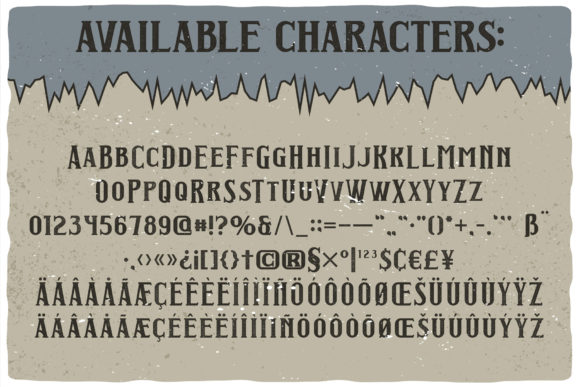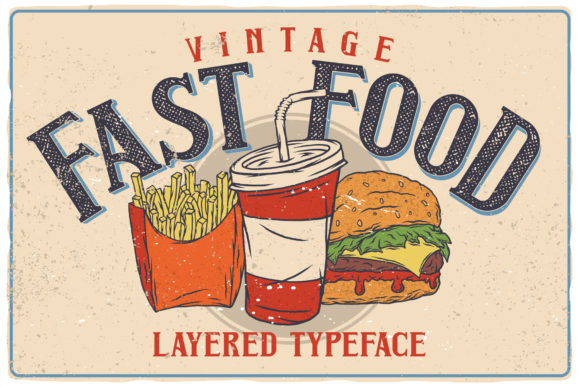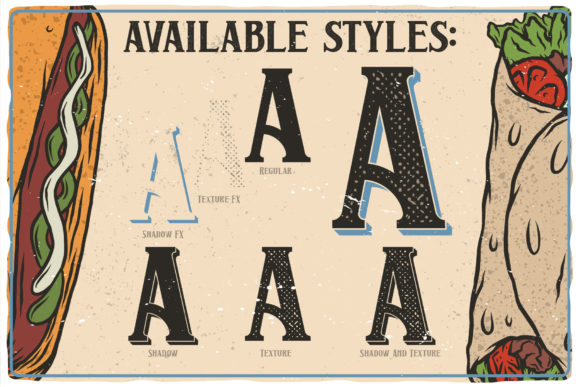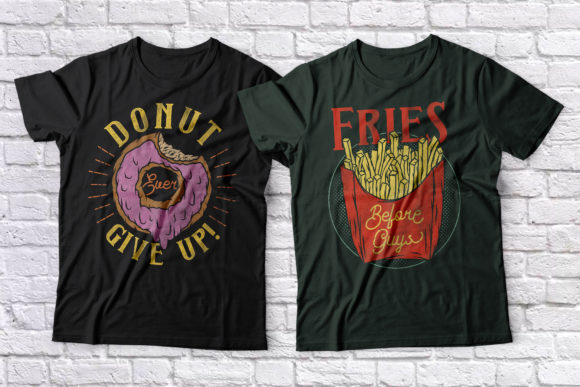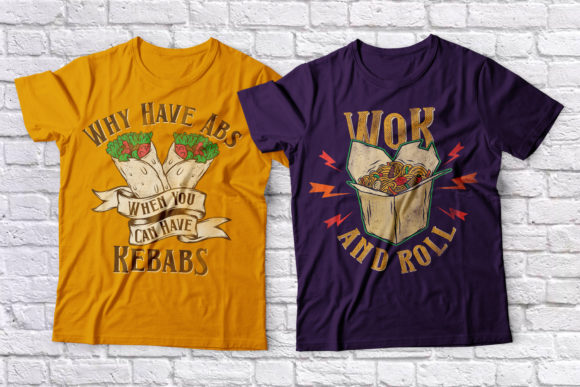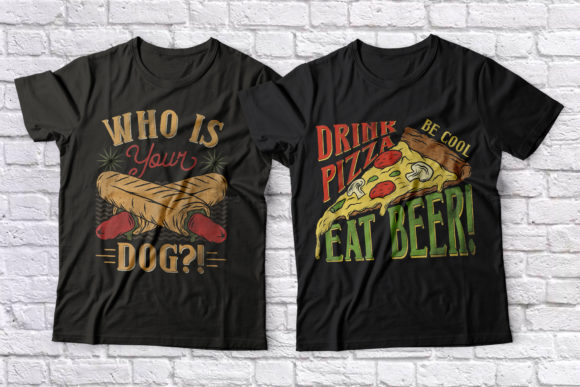
Introduction to Fast Food Font
Remember that moment when you stumbled upon the perfect font for your creative project? The one that instantly elevated your design from good to great? For designers, it’s a thrill like no other, and we’re about to share the secret to unlocking that magic.
Meet Fast Food Font, a bold, authentic, and vintage-styled display font that’s perfect for any branding, product packaging, invitation, or quote that needs a dash of retro charm. This high-quality design resource is available for free download, making it an instant hit with designers looking to add a touch of personality to their work.
With its transparent background and versatile style, Fast Food Font is the perfect addition to any design project. Whether you’re working on a creative brief or just want to experiment with a new look, this font is sure to inspire your next big idea.
Key Features of Fast Food Font
- High-quality design resource ideal for creative projects, such as restaurant menus, advertisements, and packaging.
- Features a transparent background, making it easy to place over any image or design without worrying about unwanted backgrounds.
- Unique, bold, and playful design that perfectly captures the essence of fast food culture, making it an excellent choice for branding and marketing materials.
- Designed to be highly legible, even at small font sizes, ensuring that your message is conveyed clearly and effectively.
- Perfect for designers, entrepreneurs, and businesses in the fast food industry looking for a high-quality, free design resource to elevate their brand identity.
Honest Review: Fast Food Font
As a designer, I’m always on the lookout for high-quality design resources to enhance my creative projects. Recently, I stumbled upon the Fast Food Font, and I must say it’s been a game-changer.
What works well: ✨ The Fast Food Font is incredibly versatile and can be used for a wide range of design applications, from branding and advertising to packaging and web design. The font’s modern and playful aesthetic makes it perfect for adding a touch of whimsy to any creative project.
What I also appreciate is that the font has a transparent background, making it easy to work with and customize. Plus, it’s a free download, which is always a bonus!
- The Fast Food Font comes in a variety of styles, including bold and regular weights.
Limitations: ⚠️ One thing to note is that the font may not be suitable for formal or corporate design projects, as it’s a bit too playful for those applications.
Overall, I’m really impressed with the Fast Food Font and would highly recommend it to fellow designers looking for a fun and versatile font to add to their design arsenal.
The Fast Food Font is a high-quality, unique font designed for creative projects. It’s perfect for adding a playful touch to your designs.
Tips for Getting the Most Out of Fast Food Font
Use the Fast Food Font to add a fun and playful touch to your designs. Experiment with different font sizes, colors, and combinations to create unique and eye-catching designs.
The Fast Food Font is perfect for:
- Restaurant menus and branding
- Food truck designs and promotions
- Food-related social media graphics and ads
Alternatives to Fast Food Font
Alex Brush is a creative font designed by Pablo Impallari and Rodrigo Fuenzalida. It’s a great choice for design projects that require a touch of elegance and sophistication. This font is available for free download and has a transparent background, making it suitable for use on complex backgrounds. Alex Brush is more refined and sophisticated compared to Fast Food Font, making it a better choice for high-end design projects.